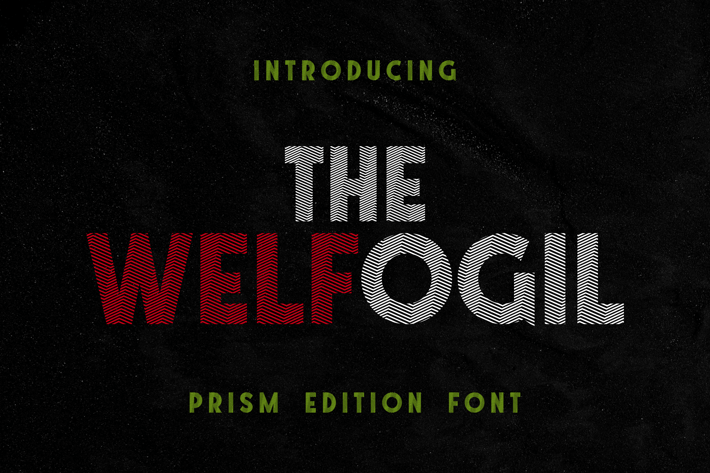
The Welfogil Prism Font
he Prism Font: Illuminate Your Brand Identity
Introducing Prism, a striking font designed to enhance your brand’s presence. With its unique angles and modern flair, Prism captures attention and communicates your message effectively. Available in .OTF and .TTF formats, it’s perfect for all your branding projects.
Philosophy: "The Ideal Font for Corporate Branding"
Prism is more than just a typeface; it’s a vital tool for elevating your brand's voice. Its contemporary design merges professionalism with creativity, making it a great choice for businesses looking to stand out. The bold version ensures your content grabs attention and leaves a lasting impact.
Key Features:
Bold Version: Ideal for logos, headlines, and promotional content.
Enhanced Readability: Each character is designed for maximum clarity in digital and print.